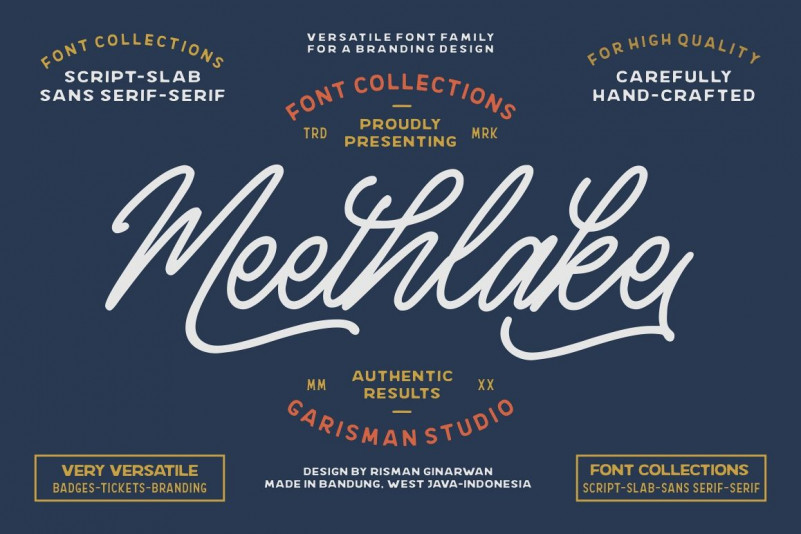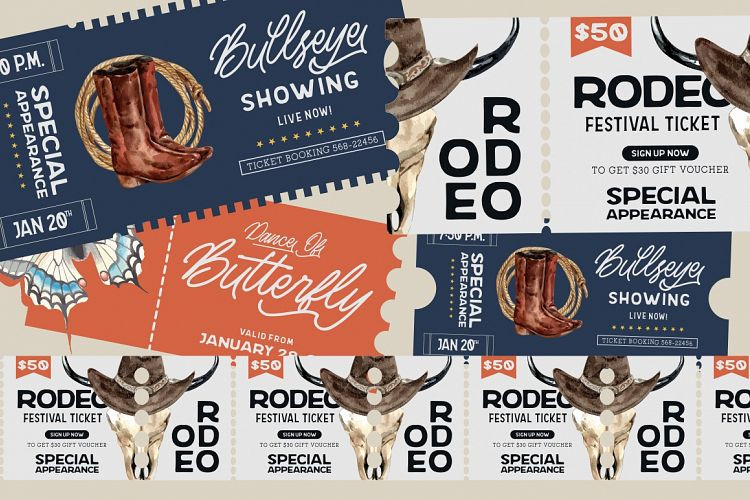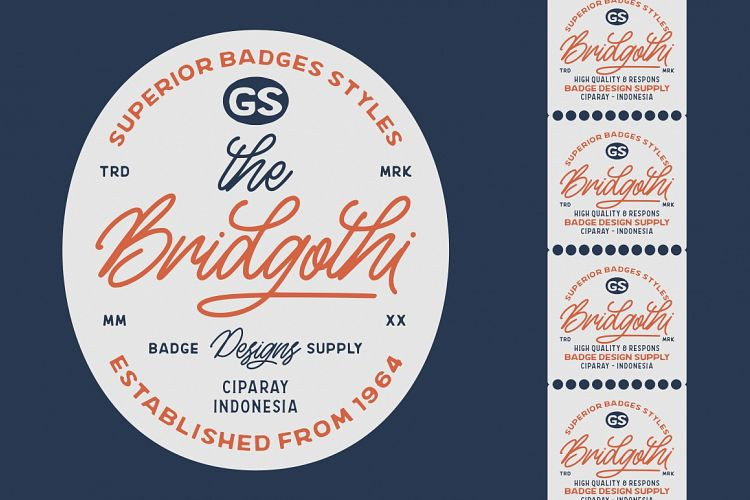
Meethlake Font
Meethlake born from inspiring vintage display. This font gives a feel of vintage, classic, old, handmade looked like. Already PUA Encoded and I think this font is perfect for people looking for vintage aesthetic or logo-type. Suitable for any graphic designs such as branding materials, t-shirt, print, business cards, logo, poster, t-shirt, photography, quotes .etc.